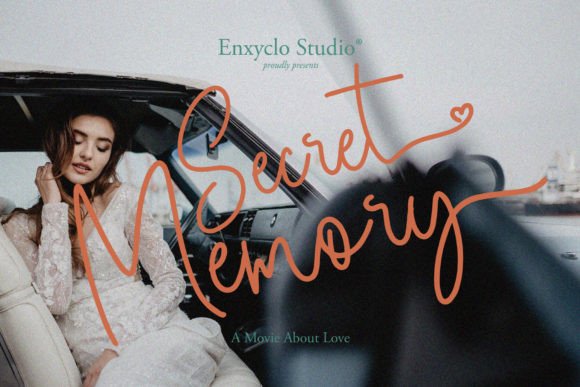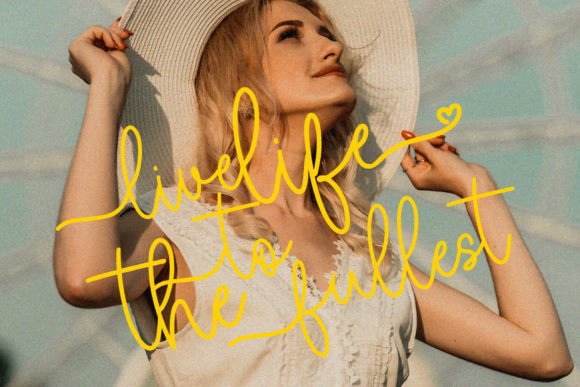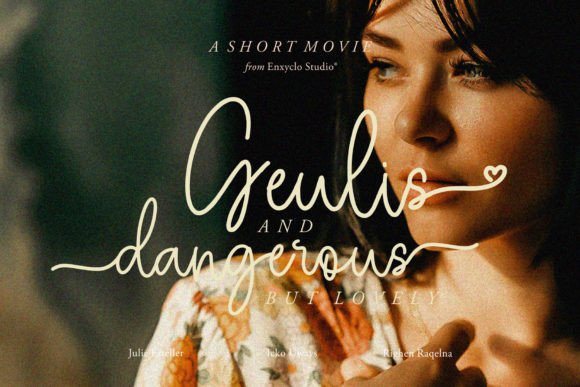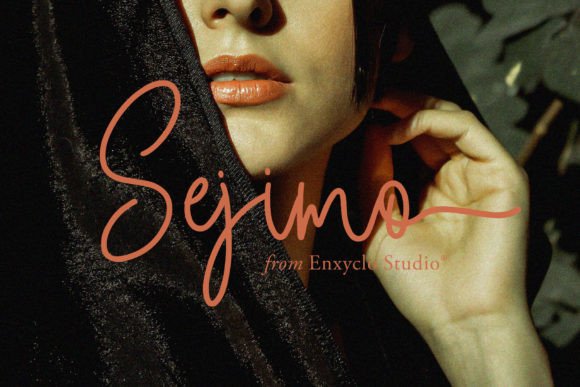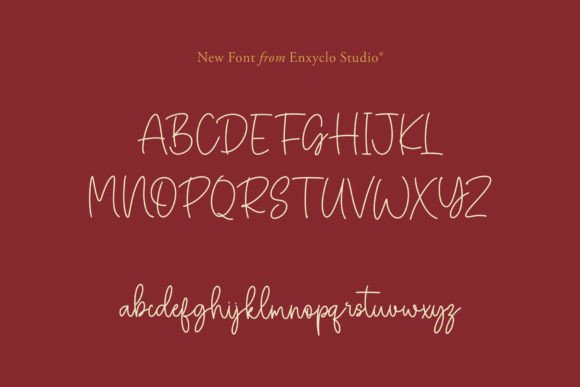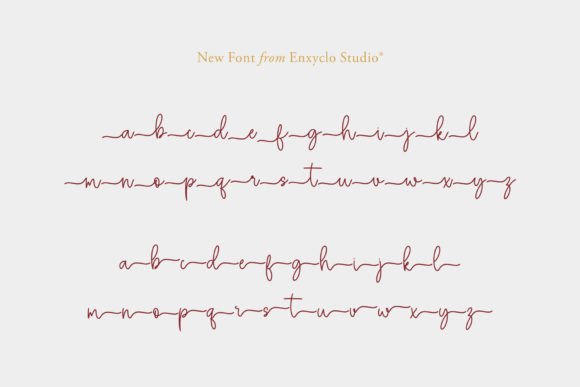
The Blessing Gloomy Font: A Romantic Love Heart Swash Script Font to Elevate Your Designs
Have you ever been working on a project, pouring your heart and soul into it, only to get stuck on one thing: finding the perfect font? I remember a particularly frustrating experience when I was designing a wedding invitation for a client. I wanted a font that was romantic, elegant, and would make the invitation feel special. That’s when I stumbled upon the Blessing Gloomy font. It was love at first sight! 💕
In this article, we’ll dive into the world of Blessing Gloomy, a unique handwritten script font with heart or love swashes that’s perfect for designers, crafters, and creative hobbyists. We’ll explore its features, how to use it, and some similar fonts you might love.
An Honest Review of Blessing Gloomy
- ✨ Unique and elegant design with heart swashes that add a touch of romance to any project
- ✅ Highly versatile and can be used in a variety of contexts, from wedding invitations to billboards
- 💫 Masterfully designed to bring creative ideas to life
- 🎉 Perfect for headlines, titles, and posters
While Blessing Gloomy is an amazing font, there are a few things to keep in mind:
- 🤔 It may not be the best choice for body text, as it’s designed for larger point sizes
- ⚠️ Some users may find the heart swashes a bit too ornate or distracting
The Backstory of Blessing Gloomy
Blessing Gloomy was designed with love and care by a talented font designer who wanted to create a unique and romantic script font. The designer was inspired by the beauty of handwritten scripts and the elegance of heart swashes. The result is a font that’s both elegant and playful, perfect for designers who want to add a touch of romance to their projects.
Q: What is Blessing Gloomy font?
A: Blessing Gloomy is a romantic love heart swash script font that’s perfect for designers, crafters, and creative hobbyists.
Q: What can I use Blessing Gloomy for?
A: You can use Blessing Gloomy for a variety of projects, including wedding invitations, headlines, billboards, magazines, websites, titles, posters, branding, t-shirt design, and logos.
In conclusion, Blessing Gloomy is a beautiful and elegant font that’s perfect for designers who want to add a touch of romance to their projects. With its unique heart swashes and highly versatile design, it’s an excellent addition to any font library. Whether you’re designing a wedding invitation, a billboard, or a t-shirt, Blessing Gloomy is sure to elevate your designs and make them stand out from the rest.